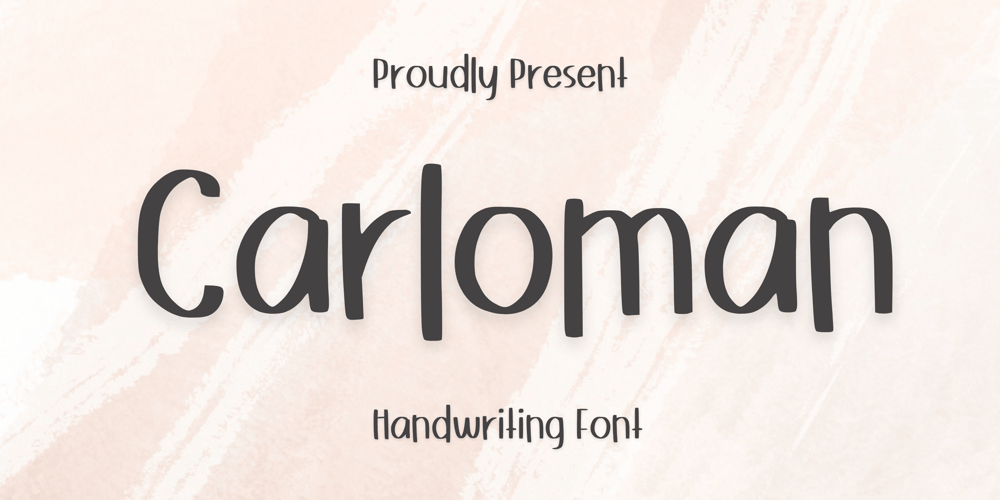
Carloman Font Family was designed by Nur Aiysah Amalia and published by Aisyah. Carloman contains 1 styles and family package options. Carloman Handwritten is a casual and playful script font that emulates the look of handwritten letters with a relaxed and modern style.Carloman Handwritten is perfect for creating designs for social media posts, blog headers, greeting cards, invitations, and more. This font includes uppercase and lowercase letters, numerals, and punctuation